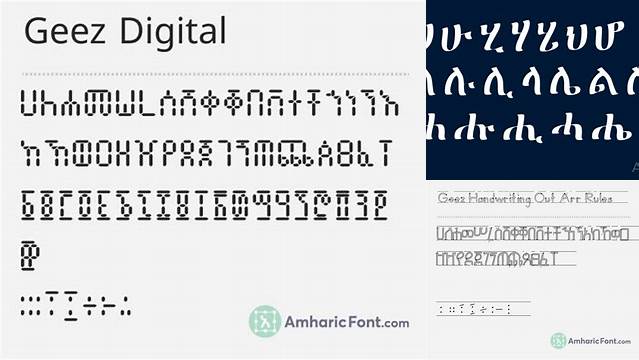
Geez Amharic Font: Free Download Guide
Let's dive into the world of Geez Amharic fonts! If you're looking to download Geez Amharic fonts for free, you've come to the right place. This comprehensive guide will walk you through everything you need to know, from understanding the nuances of Geez script to finding the best resources for your font needs. Whether you're a designer, a student, or simply someone who appreciates the beauty of this ancient script, we've got you covered. So, grab a cup of coffee, and let's get started!
Amharic Font Free Download: Quick Start
Understanding Geez Script
The Geez script, also known as Ethiopic, is an ancient writing system used in Ethiopia and Eritrea. It's not just a font; it's a rich part of history and culture. Knowing the basics of Geez script will help you appreciate the fonts you download and use them more effectively. The script is an abugida, where each symbol represents a consonant-vowel pair. This unique structure makes Geez script visually distinct and fascinating to study. You can start with introductory online resources or language learning apps to familiarize yourself with the characters and their pronunciations.
Best Websites to Download Geez Amharic Fonts
Finding the right website for your Geez Amharic font download is crucial. You want to ensure the fonts are high-quality and the source is reputable. Here are a few suggestions:
- Font Library: A great resource for open-source fonts, including some Amharic options.
- Google Fonts: While limited, Google Fonts does offer a few Amharic fonts that are free to use.
- SIL International: Provides fonts designed for linguistic and literacy projects, often including Ethiopic fonts.
Using Amharic Fonts in Microsoft Word
Want to use your newly installed amharic fonts in Microsoft Word? Here’s how:
- Open Word: Launch Microsoft Word.
- Select Font: In the Font dropdown menu, find the Amharic font you installed. It should appear in the list.
- Start Typing: If you have an Amharic keyboard layout enabled, you can start typing directly in Amharic. If not, you might need to use a character map or an online Amharic keyboard.
Amharic Keyboard Layouts for Windows
To type in Amharic, you'll need an amharic keyboard layout installed on your Windows machine. Here’s how to add one:
- Settings: Go to Settings > Time & Language > Language.
- Add a Language: Click "Add a language" and select Amharic.
- Options: Click on the Amharic language pack, then click "Options."
- Add a Keyboard: Under Keyboards, click "Add a keyboard" and choose the Amharic keyboard layout.
Now you can switch between your regular keyboard and the Amharic keyboard using the language icon in the system tray.
Amharic Keyboard Layouts for macOS
Adding an amharic keyboard layout on macOS is similar:
- System Preferences: Go to System Preferences > Keyboard > Input Sources.
- Add Input Source: Click the "+" button to add a new input source.
- Select Amharic: Choose Amharic from the list of languages and select the desired keyboard layout.
Use the Input Menu in the menu bar to switch between keyboard layouts.
Free Amharic Fonts for Commercial Use
Need free amharic fonts for commercial use? This is where you need to be extra careful about licensing. Always check the font's license agreement to ensure you're allowed to use it for commercial purposes. Google Fonts and some open-source font libraries are good places to start your search.
Amharic Fonts for Graphic Design
For graphic designers, having a variety of amharic fonts for graphic design is essential. Look for fonts that are not only aesthetically pleasing but also legible in different sizes and formats. Consider fonts that come in multiple weights (e.g., light, regular, bold) to provide flexibility in your designs.
Amharic Fonts for Web Design
When it comes to amharic fonts for web design, you need to consider web-friendliness. Choose fonts that are optimized for the web, meaning they load quickly and render well on different browsers and devices. Google Fonts is an excellent resource for web-safe Amharic fonts.
The Importance of Font Licensing
Understanding font licensing is crucial to avoid legal issues. Most fonts come with a license agreement that specifies how you can use the font. Some fonts are free for personal use but require a commercial license for business purposes. Always read the license agreement carefully before using a font in your projects.
Creating Your Own Amharic Font
Feeling ambitious? You can even try creating your own amharic font. This is a challenging but rewarding process that requires specialized software and a good understanding of typography. Tools like FontLab Studio and Glyphs are popular among font designers.
Converting Amharic Fonts
Sometimes you may need to convert amharic fonts from one format to another (e.g., TTF to OTF). Online font converters can help you with this task. However, be cautious when using online converters, as some may not be reliable or may compromise the font's quality.
Amharic Font Styles: Serif vs. Sans-Serif
Like Latin fonts, amharic font styles also come in serif and sans-serif varieties. Serif fonts have small decorative strokes at the ends of the letters, while sans-serif fonts do not. Serif fonts are often used for body text because they are considered more readable, while sans-serif fonts are often used for headings and titles.
Pairing Amharic Fonts with Latin Fonts
When designing bilingual documents or websites, you may need to pair amharic fonts with latin fonts. Choose Latin fonts that complement the style and weight of your Amharic fonts. A general rule of thumb is to pair serif fonts with sans-serif fonts, and vice versa.
Amharic Calligraphy Fonts
For a touch of elegance, consider using amharic calligraphy fonts. These fonts mimic the look of handwritten calligraphy and are perfect for invitations, greeting cards, and other special occasions. Look for fonts that have smooth, flowing lines and intricate details.
Amharic Fonts for Mobile Apps
Developing a mobile app that supports Amharic? You'll need amharic fonts for mobile apps that are optimized for small screens. Choose fonts that are legible and render well on different devices and screen resolutions. Test your fonts on various devices to ensure they look good.
Amharic Fonts for Print Media
When designing for print media, such as books and magazines, you'll need amharic fonts for print media that are high-quality and readable. Choose fonts that have crisp, clean lines and are suitable for long-form reading. Consider the paper stock and printing method when selecting your fonts.
The Future of Amharic Typography
The future of amharic typography is bright, with new fonts and technologies constantly emerging. As more designers and developers embrace the beauty and complexity of the Amharic script, we can expect to see even more innovative and creative fonts in the years to come.
Troubleshooting Amharic Font Issues
Encountering problems with your amharic font? Here are some common issues and how to fix them:
- Font Not Showing Up: Make sure the font is properly installed and activated. Restart your computer or the application you're using.
- Garbled Characters: Ensure you have the correct keyboard layout enabled and that your application supports Amharic script.
- Font Rendering Issues: Try clearing your font cache or updating your graphics drivers.
Amharic Fonts and Unicode
Amharic fonts and unicode are closely related. Unicode is a standard that assigns a unique code point to each character in a writing system, including Amharic. Using Unicode-compliant fonts ensures that your text will be displayed correctly on different devices and platforms.
Amharic Fonts for Different Operating Systems
Whether you're using Windows, macOS, Linux, or Android, you can find amharic fonts for different operating systems. The installation process may vary slightly depending on the operating system, but the basic principles are the same. Refer to the documentation for your specific operating system for detailed instructions.
Amharic Font Design Resources
Looking for amharic font design resources? There are many online resources available, including tutorials, articles, and forums. These resources can help you learn more about typography and font design, and improve your skills.
Amharic Fonts and Cultural Significance
Amharic fonts and cultural significance are deeply intertwined. The Amharic script is an integral part of Ethiopian and Eritrean culture and identity. Using Amharic fonts in your designs can help preserve and promote this rich cultural heritage.
Amharic Fonts and Accessibility
When designing with amharic fonts and accessibility in mind, choose fonts that are legible and easy to read for people with disabilities. Consider factors such as font size, contrast, and spacing. Provide alternative text for images that contain Amharic text.
Finding the Perfect Amharic Font
Finding the perfect amharic font can be a challenge, but with a little research and experimentation, you can find the ideal font for your project. Consider the purpose of your design, the target audience, and the overall aesthetic you're trying to achieve.
Staying Updated with Amharic Font Trends
To stay updated with amharic font trends, follow font designers, typography blogs, and design communities. This will help you discover new fonts and learn about the latest trends in Amharic typography. Participate in online forums and discussions to share your knowledge and get feedback from other designers.
Common Mistakes When Using Amharic Fonts
Avoid common mistakes when using amharic fonts by double-checking your font selection, ensuring proper installation, and verifying licensing terms. Always preview your designs on different devices and platforms to catch any rendering issues. Pay attention to kerning and spacing to ensure readability.
Advanced Techniques for Amharic Typography
Explore advanced techniques for amharic typography, such as using OpenType features, creating custom ligatures, and experimenting with different font weights and styles. These techniques can help you create unique and visually stunning designs.